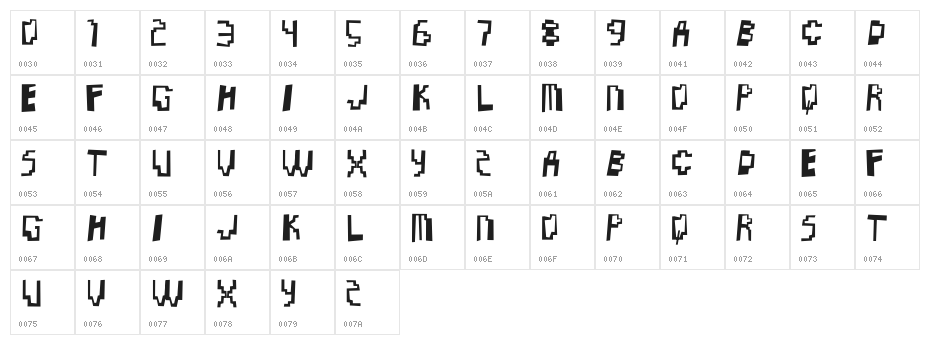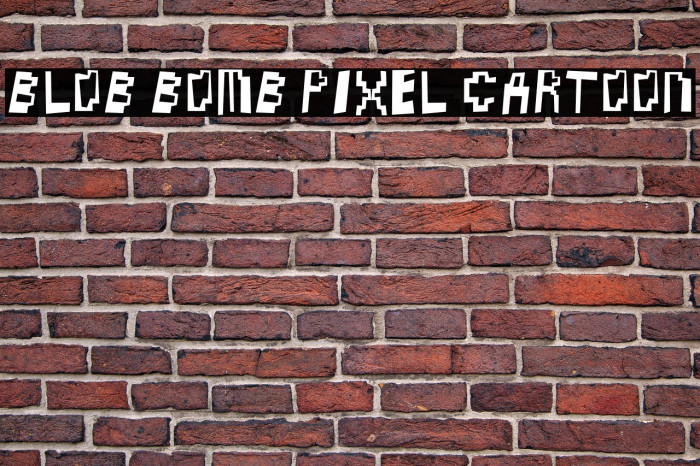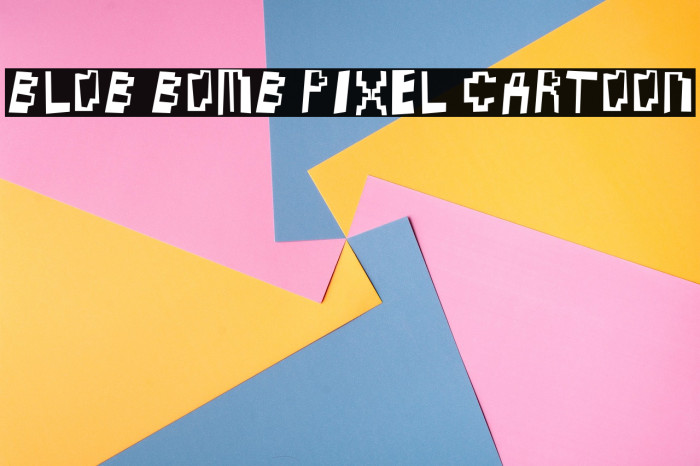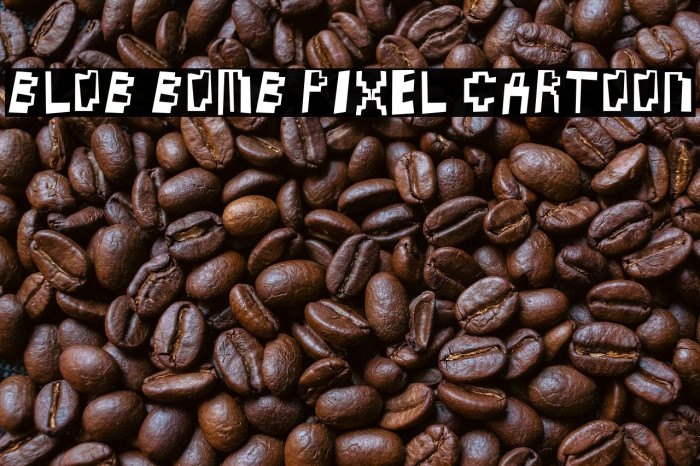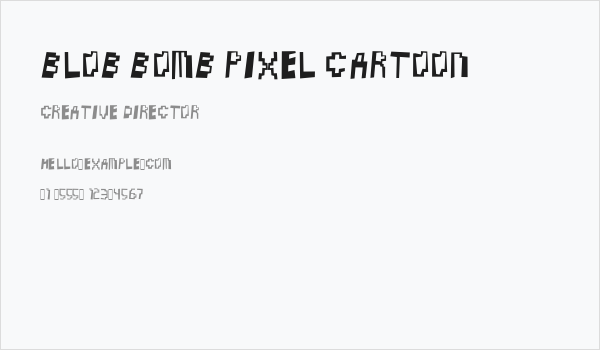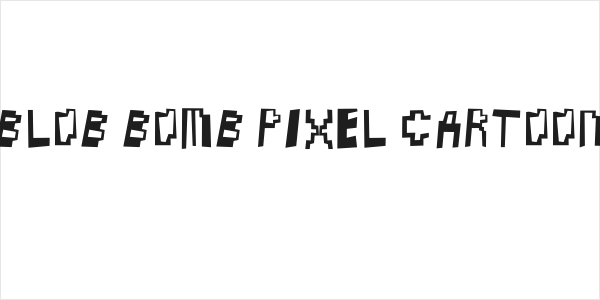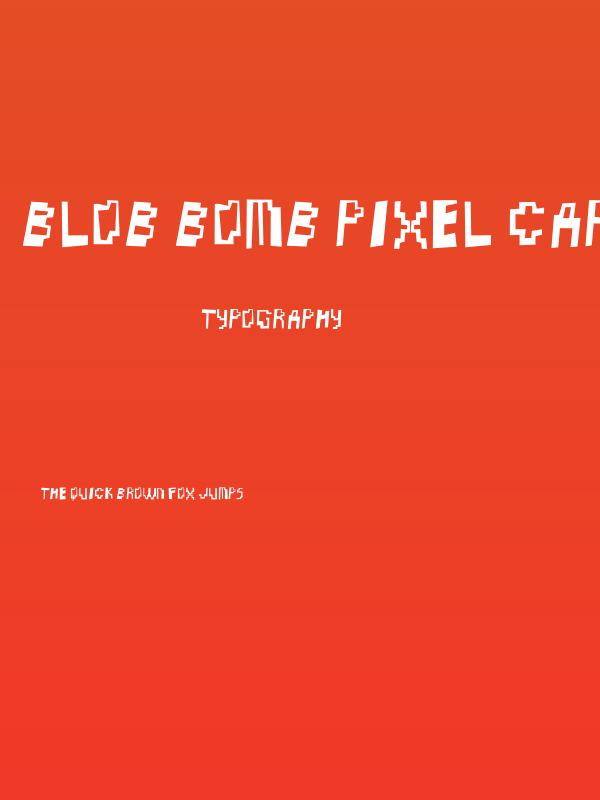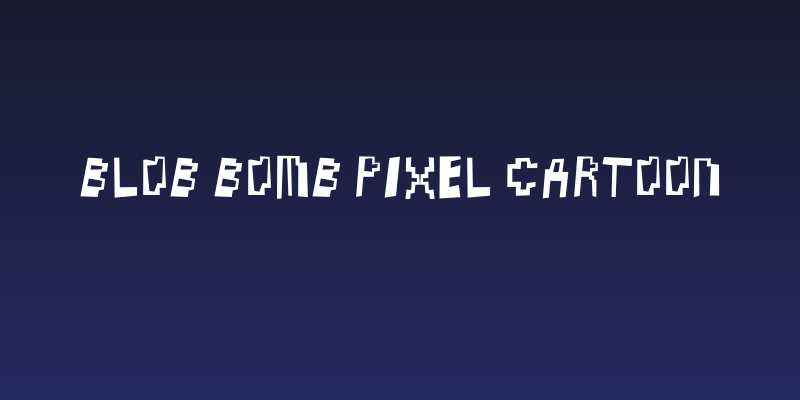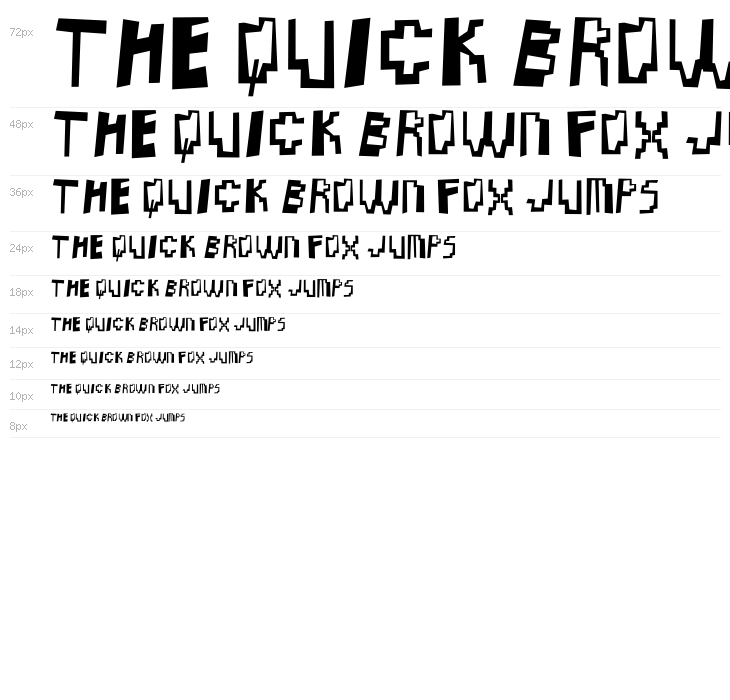
Blob Bomb Pixel Cartoon Font
Blob Bomb Pixel Cartoon Description
This font features a bold and playful design with a pixelated, cartoon-like appearance. The characters are irregular and jagged, giving them a dynamic and energetic feel. The uppercase and lowercase letters maintain a consistent style, with exaggerated angles and a blocky structure. Numbers and special characters follow the same aesthetic, ensuring a cohesive look across all glyphs. The font's unique style makes it stand out, ideal for projects that require a fun and eye-catching typeface.
| Overall Style | Cartoon, Playful, Energetic |
| Proposed Projects | Ideal for video game graphics, children's book titles, comic strips, and playful branding materials. |